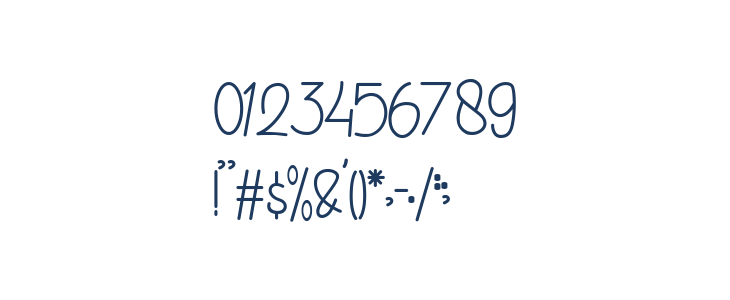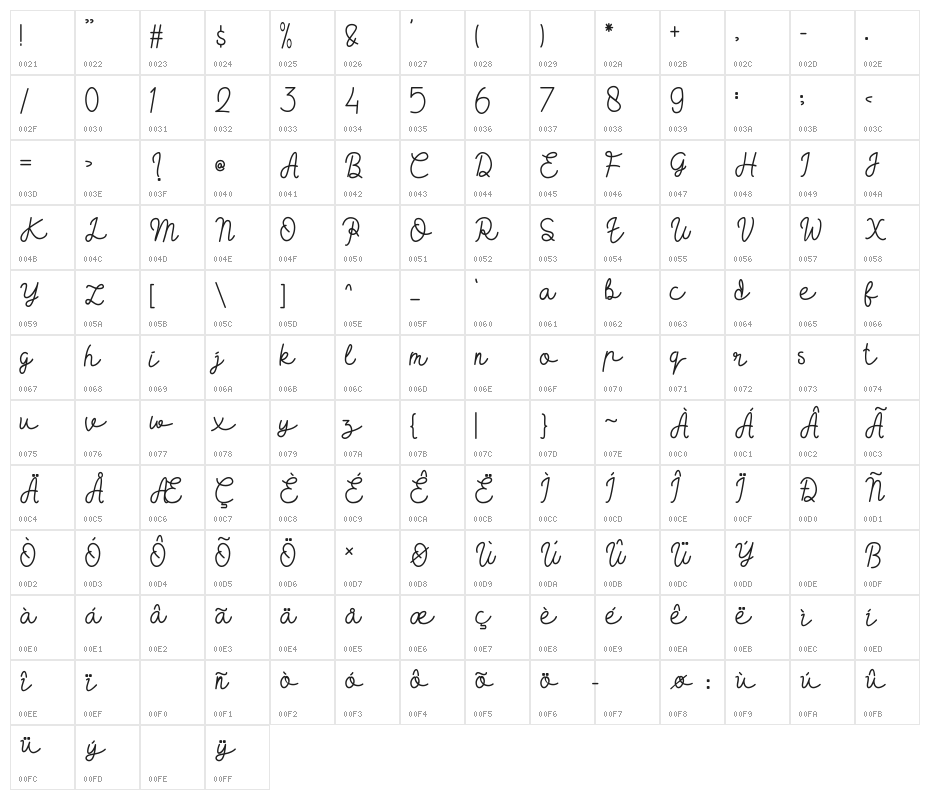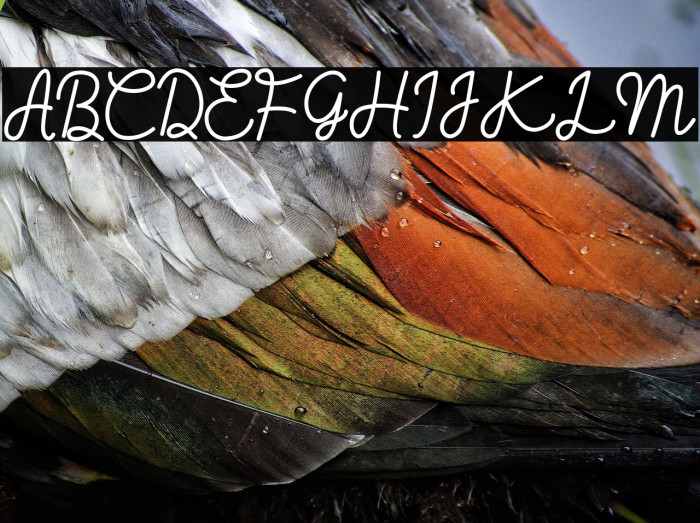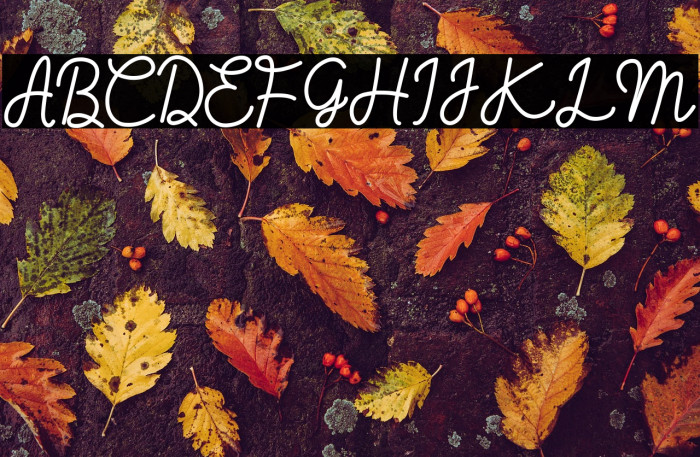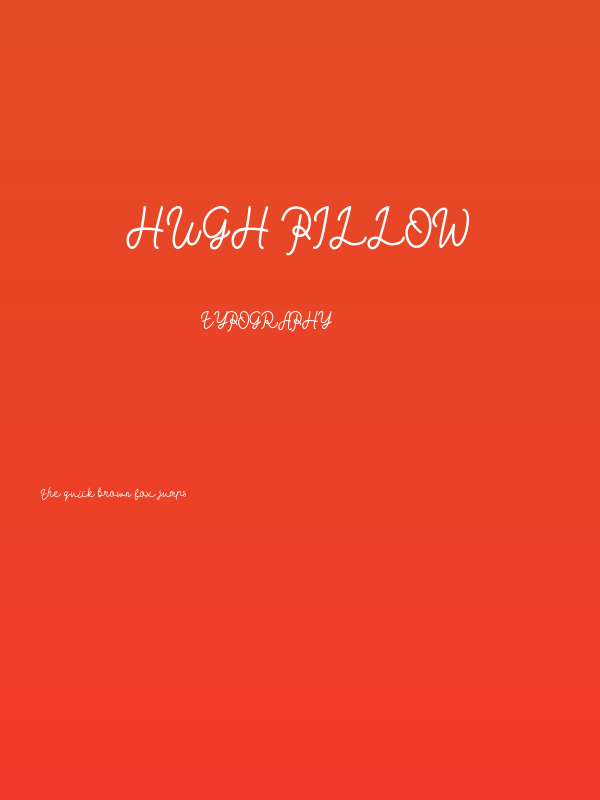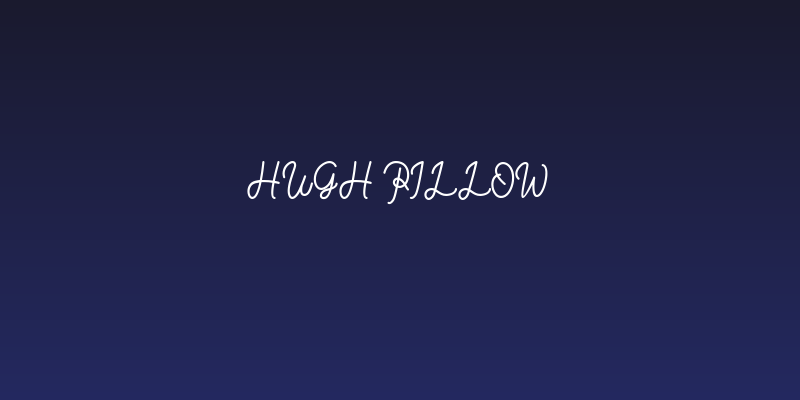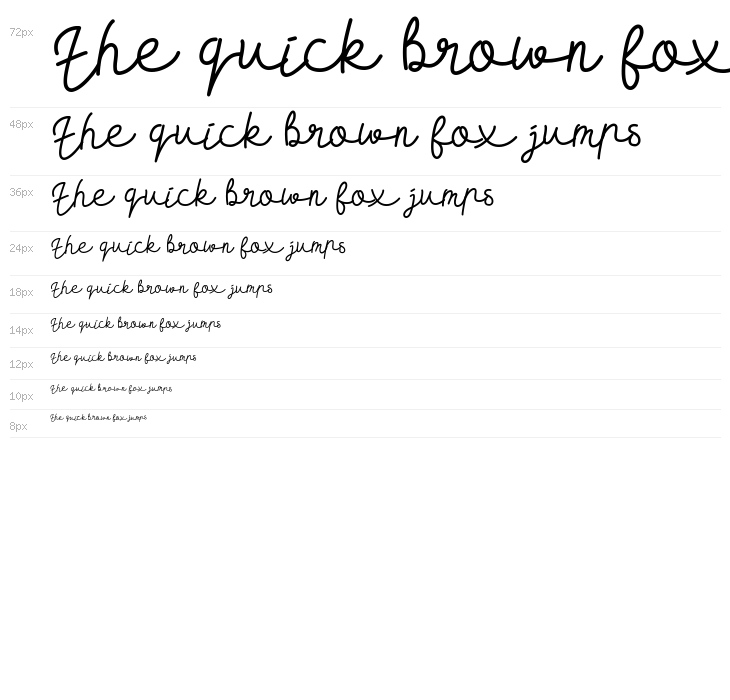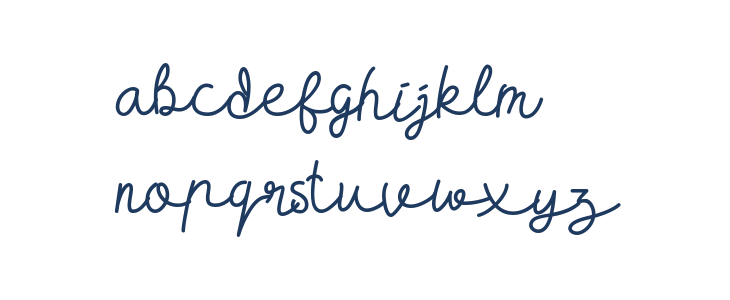
Hugh Pillow Font
Hugh Pillow Description
This font features a playful and elegant cursive style with smooth, flowing lines that mimic natural handwriting. The uppercase letters are slightly more structured, while the lowercase letters exhibit a charming looped design, adding a whimsical touch. The numerals are consistent with the overall style, maintaining the same fluidity and grace. Special characters are well-integrated, ensuring versatility across different uses. The font's overall appearance is both approachable and sophisticated, making it suitable for a variety of creative projects.